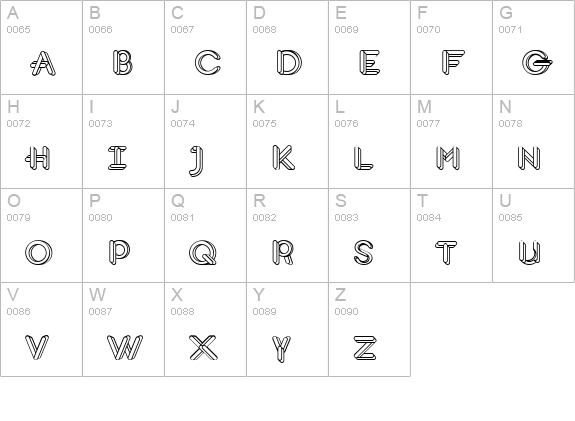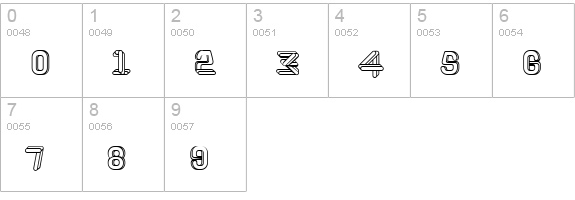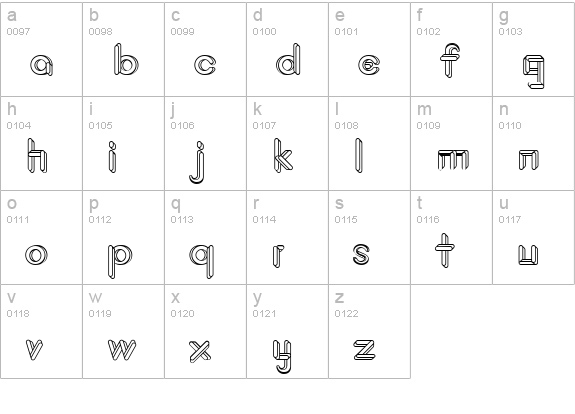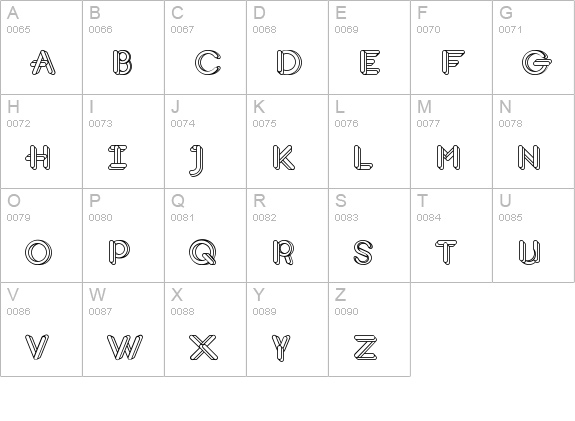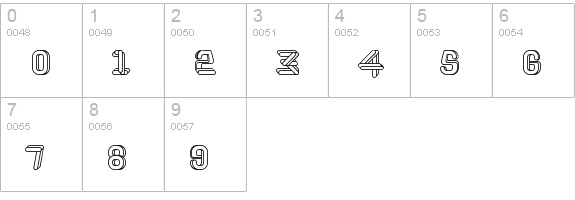
JohanVaaler Bold is a strong, high-contrast variant in the JohanVaaler typeface family \xE2\x80\x94 well suited to headlines, attention-grabbing titles, and strong calls-to-action.
Introducing the exquisite JohanVaaler Bold font, a true masterpiece of design and elegance. This stunning typeface combines the perfect balance of boldness and sophistication, making it ideal for a wide range of creative projects. With its strong, confident strokes and impeccable attention to detail, JohanVaaler Bold exudes a sense of power and authority. Its clean lines and distinctive curves give your text a sense of modernity and professionalism, ensuring that your message is conveyed with clarity and impact. But what truly sets JohanVaaler Bold apart is its accessibility. We believe that great design should be available to everyone, and that is why we are proud to offer this remarkable font free of charge. You heard right – JohanVaaler Bold is freely available to download at FontsMarket.com, giving you the opportunity to elevate your designs without breaking the bank. Whether you're designing a logo, crafting a striking headline, or creating eye-catching advertising materials, JohanVaaler Bold is the perfect choice to make your text stand out from the crowd. Its versatility and timeless appeal make it suitable for a multitude of design applications, from print to digital media. So why settle for ordinary when you can have extraordinary? Download JohanVaaler Bold today and unleash your creativity with this exceptional font. Remember, it's free to download at FontsMarket.com, so don't miss out on this incredible opportunity to enhance your designs and captivate your audience.